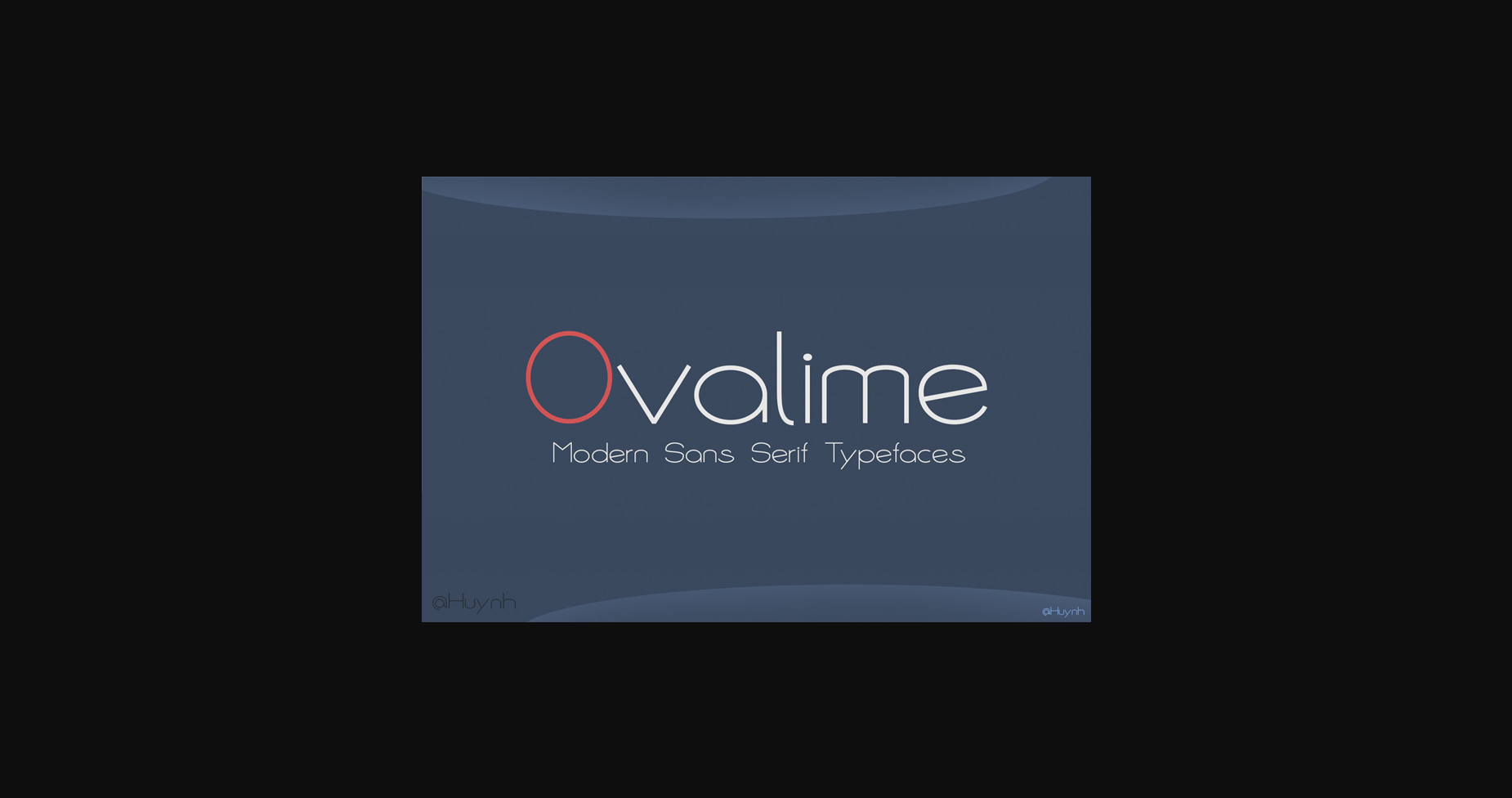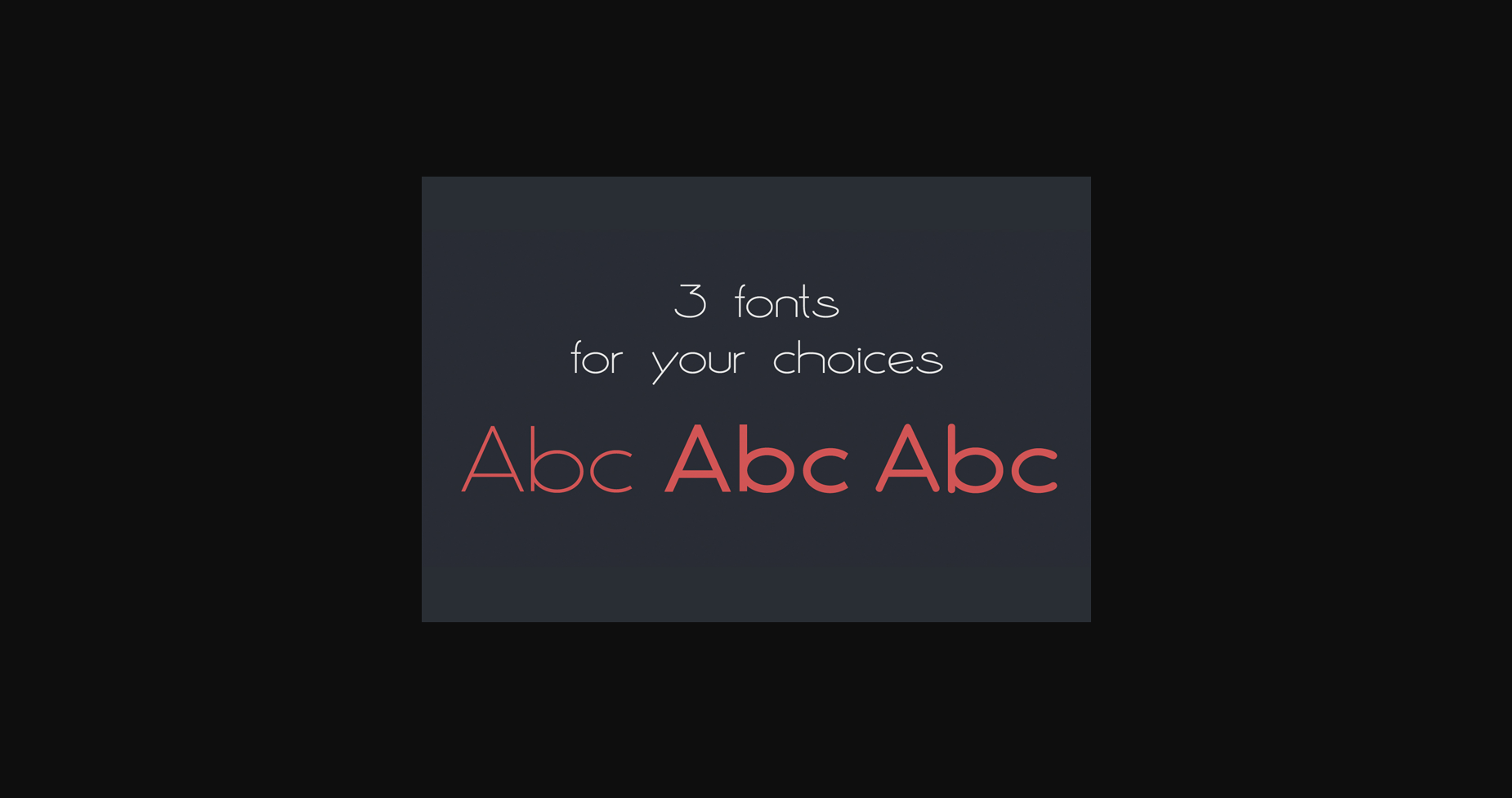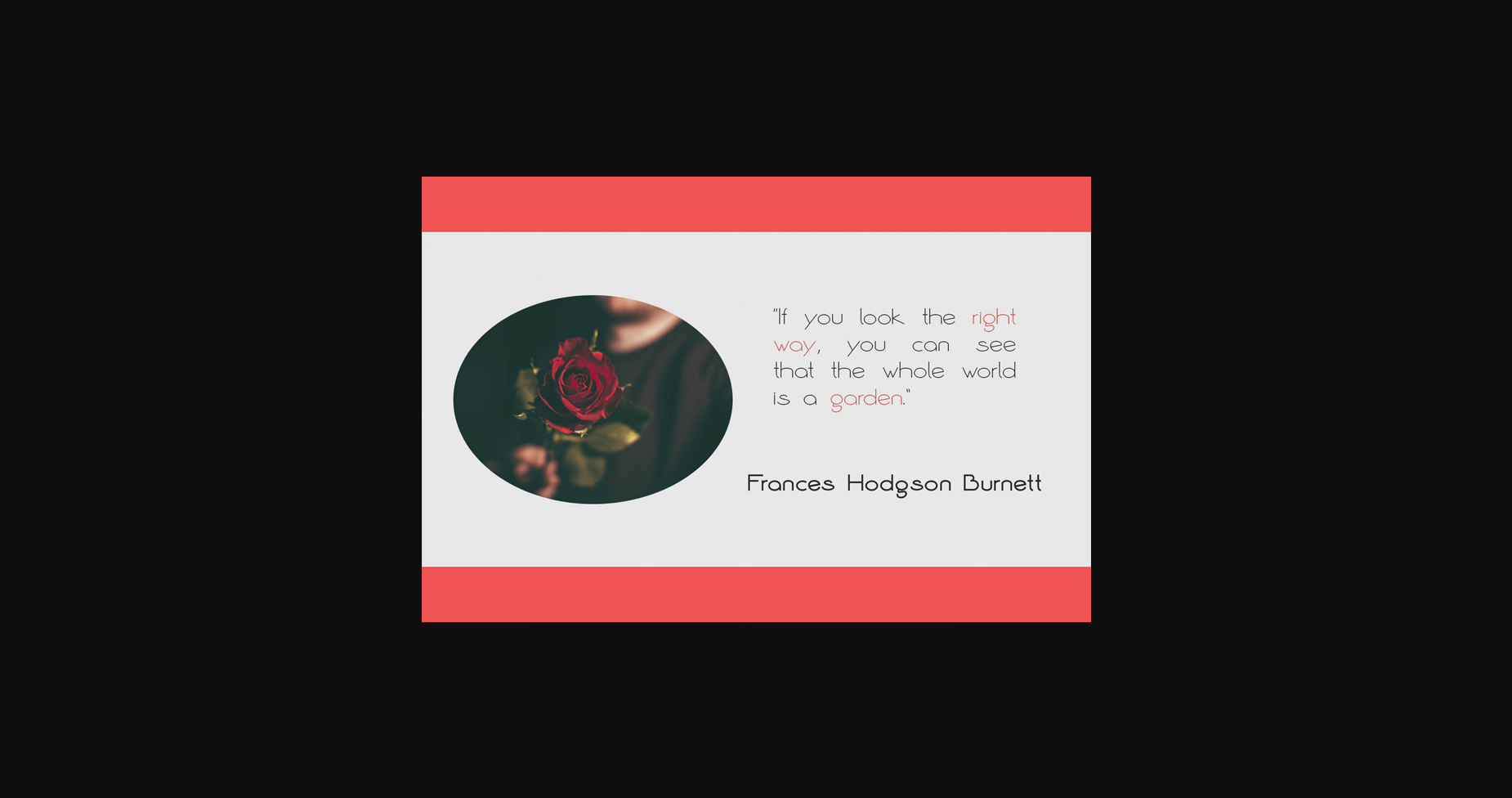
About Ovalime Font
Ovalime is a modern and simple sans serif font. It can easily be matched to an incredibly large set of projects, so add it to your creative ideas and notice how it makes them stand out!